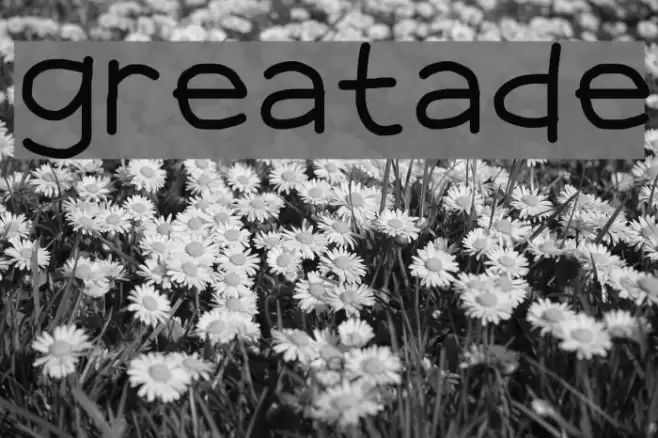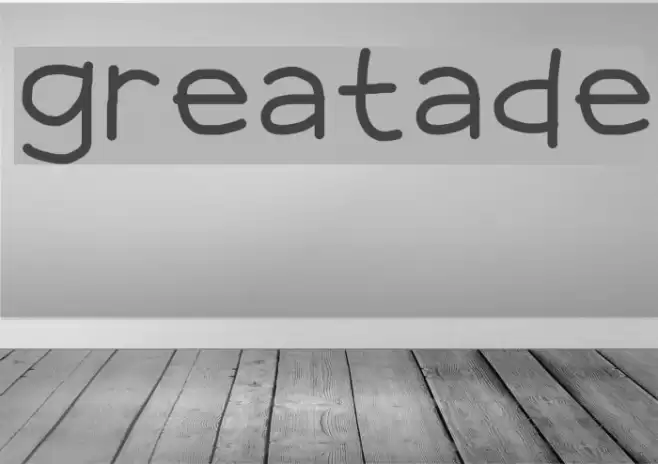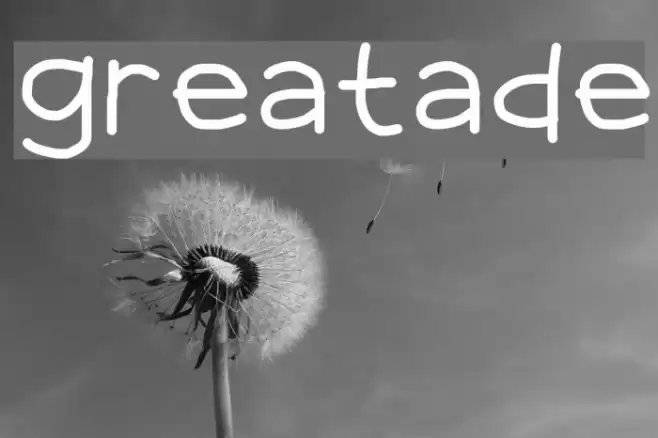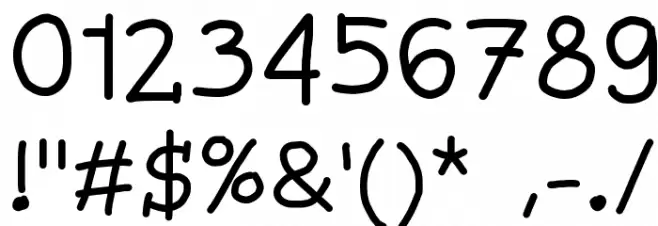
greatade Font
greatade Description
This font features a playful and casual handwritten style, characterized by its rounded and slightly uneven letterforms. The strokes are consistent in thickness, giving it a uniform appearance while maintaining a friendly and approachable vibe. The uppercase and lowercase letters are well-balanced, with a slight tilt that adds to the informal aesthetic. The numerals and special characters follow the same design principles, ensuring a cohesive look across all glyphs. This font is ideal for projects that require a personal touch, such as greeting cards, children's books, or informal branding.
A playful handwritten font with rounded, consistent strokes and a casual vibe from Handwritten fonts.
- Proposed Projects: Greeting cards, children's books, informal branding, personal blogs, and playful packaging.
- Overall Style: Casual, Playful
- Use Case: Headlines, Informal text, Branding